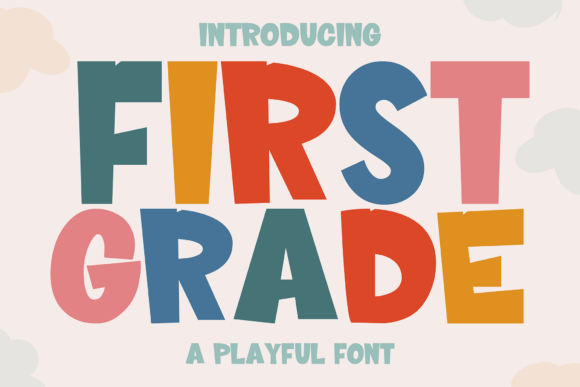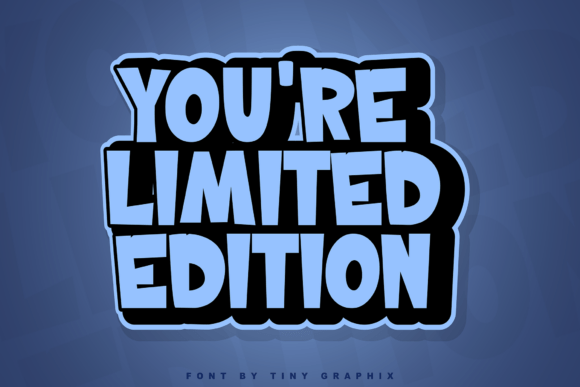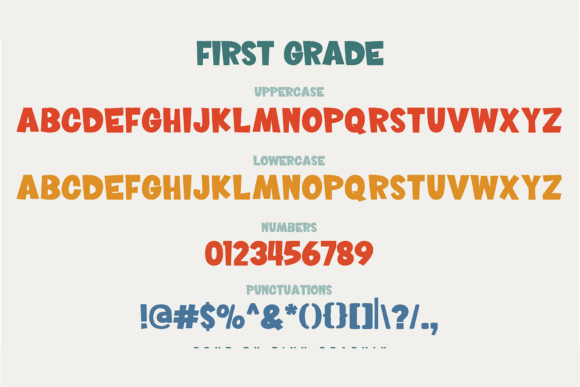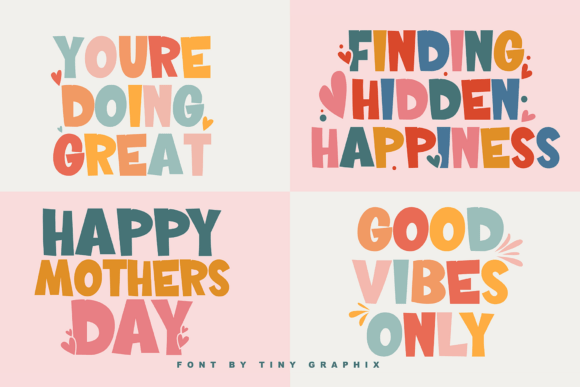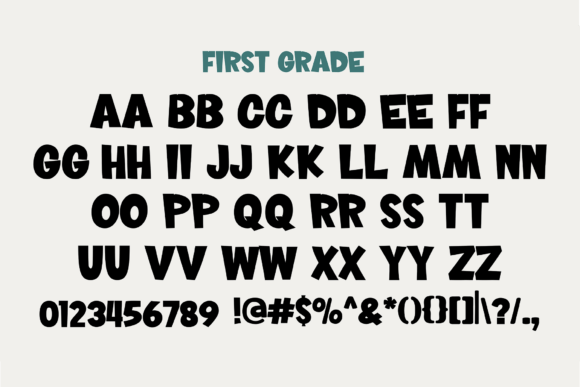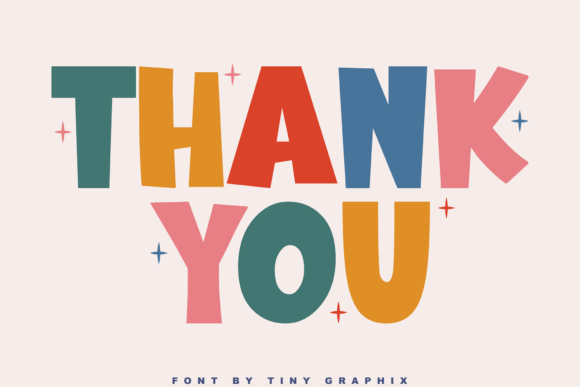
Do you remember the excitement of receiving a handmade card or poster from your child on the first day of school? The joy and pride that comes with creating something special for a loved one is a feeling that never gets old. As a designer, you have the power to capture that same magic in your work, and the First Grade Font is the perfect tool to help you do just that.
This playful, bold display font is specifically designed to evoke the sense of fun and creativity that comes with the back-to-school season. With its quirky, slightly imperfect letterforms, the First Grade Font brings a handmade, childlike warmth to your designs, making it perfect for school-themed projects, children’s books, and educational materials.
First Grade Font Key Features
- Font Family: A custom-designed font family, specifically created for educational purposes.
- Unique Characteristics: The font features a child-friendly design, with rounded edges and a clear, easy-to-read letterform, making it perfect for early learners.
First Grade Font Review
Overall, I’m quite fond of the First Grade Font – it’s a playful, hand-drawn typeface that exudes a sense of childlike wonder. Here are some things that work well: ✨
- Unique aesthetic: The font’s irregularities and whimsical flourishes give it a distinctive character that’s sure to stand out.
- Customization options: The font comes with a range of styles and variations, making it easy to adapt to different design contexts.
- Readability issues: In certain contexts, the font’s irregularities can make it difficult to read, especially at smaller font sizes.
- Lack of standardization: The font’s varied styles and weights can make it challenging to maintain consistency across a design project.
Overall, I’d give the First Grade Font 4 out of 5 stars. While it has its limitations, its unique aesthetic and customization options make it a valuable addition to any designer’s toolkit. With careful use and attention to detail, this font can add a touch of magic to your designs.
“First Grade Font” is ideal for educational materials, children’s books, and other projects that require a playful and easy-to-read font.